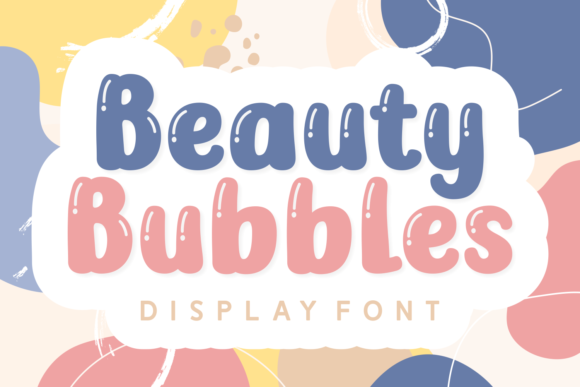
Introducing Beauty Bubbles Font: The Ultimate Playful Display Font
Are you looking for a font that can add a touch of fun and playfulness to your designs? Look no further than the Beauty Bubbles Font. This cartoon-like display font is perfect for kids’ school projects, posters, quotes, albums, covers, books, and wall art. With its chubby design and unique style, Beauty Bubbles Font is sure to make your creations stand out.
What is Beauty Bubbles Font?
Beauty Bubbles Font is a fun and playful display font that is designed to bring a smile to your face. Its cartoon-like style is reminiscent of childhood nostalgia, making it perfect for designs that require a touch of whimsy. The font features a chubby design that gives it a unique and endearing quality.
Key Features of Beauty Bubbles Font
So, what makes Beauty Bubbles Font so special? Here are some of its key features:
- Playful and bubbly design: The font features a playful and bubbly design that is sure to add a touch of fun to your creations.
- Chubby design: The chubby design of the font gives it a unique and endearing quality that sets it apart from other fonts.
- Suitable for kids’ projects: The font is perfect for kids’ school projects, making it a great choice for parents and teachers.
- Perfect for posters and quotes: The font is also great for posters and quotes, adding a touch of playfulness to your message.
- Great for albums and covers: The font is suitable for albums and covers, giving your designs a unique and eye-catching look.
- Perfect for wall art: The font is also great for wall art, adding a touch of whimsy to your designs.
Uses of Beauty Bubbles Font
So, what can you use Beauty Bubbles Font for? The possibilities are endless. Here are some ideas to get you started:
- Kids’ school projects: Use the font for kids’ school projects, such as posters, presentations, and reports.
- Posters and quotes: Use the font for posters and quotes, adding a touch of playfulness to your message.
- Albums and covers: Use the font for albums and covers, giving your designs a unique and eye-catching look.
- Wall art: Use the font for wall art, adding a touch of whimsy to your designs.
- Books and e-books: Use the font for books and e-books, giving your designs a playful and engaging look.
Benefits of Using Beauty Bubbles Font
So, why should you use Beauty Bubbles Font? Here are some benefits of using this playful display font:
- Adds a touch of fun: The font adds a touch of fun and playfulness to your designs, making them more engaging and eye-catching.
- Unique and distinctive: The font is unique and distinctive, setting your designs apart from others.
- Perfect for kids’ projects: The font is perfect for kids’ school projects, making it a great choice for parents and teachers.
- Great for social media: The font is great for social media, adding a touch of playfulness to your posts and updates.
- Easy to read: The font is easy to read, making it perfect for designs that require a clear and concise message.
Tips for Using Beauty Bubbles Font
Here are some tips for using Beauty Bubbles Font:
- Use it sparingly: Use the font sparingly, as it can be overwhelming if used too much.
- Pair it with other fonts: Pair the font with other fonts, such as a sans-serif font, to create contrast and visual interest.
- Adjust the size: Adjust the size of the font to suit your design, using larger sizes for headings and smaller sizes for body text.
- Experiment with colors: Experiment with different colors, using bright and bold colors to add a touch of playfulness to your design.
In conclusion, Beauty Bubbles Font is a fun and playful display font that is perfect for kids’ school projects, posters, quotes, albums, covers, books, and wall art. With its chubby design and unique style, Beauty Bubbles Font is sure to make your creations stand out. Whether you’re a designer, teacher, or parent, this font is a great choice for adding a touch of whimsy to your designs.
Here are some frequently asked questions about Beauty Bubbles Font:
- What is Beauty Bubbles Font?: Beauty Bubbles Font is a fun and playful display font that is designed to bring a smile to your face.
- Is Beauty Bubbles Font easy to read?: Yes, the font is easy to read, making it perfect for designs that require a clear and concise message.